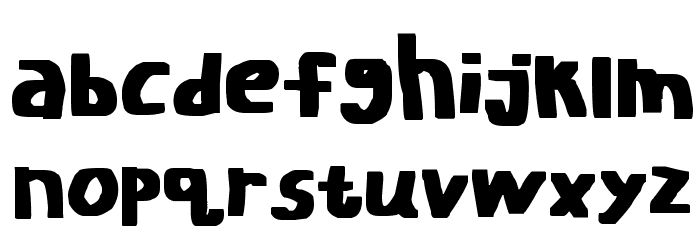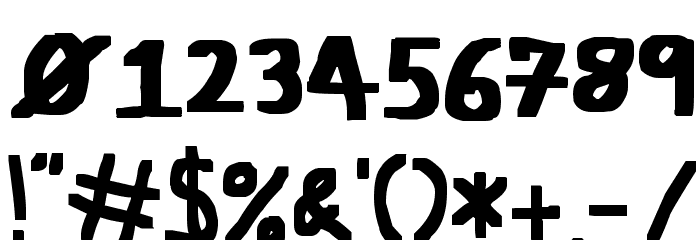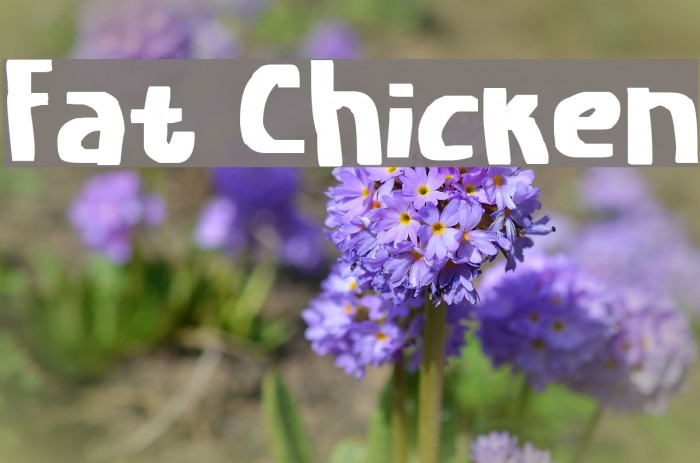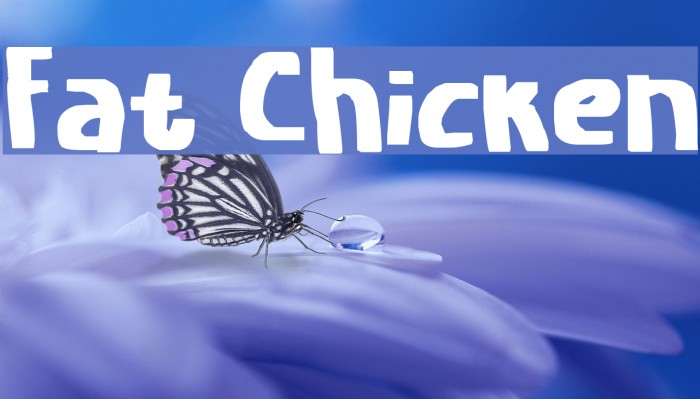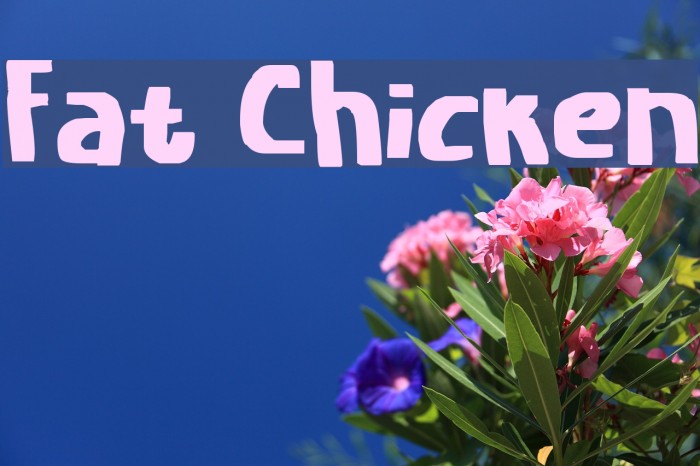
Fat Chicken Font
This playful and bold font features a hand-drawn aesthetic with thick, uneven strokes that give it a lively and informal appearance. The characters are slightly irregular, adding to its whimsical charm. The uppercase and lowercase letters maintain a consistent style, with rounded edges and a slightly condensed form. Numbers and special characters follow the same playful design, making them easily recognizable and cohesive with the overall look. This font exudes a sense of fun and creativity, perfect for projects that aim to capture attention and convey a lighthearted message.
- Font: Fat Chicken
- Proposed Projects: Ideal for children's books, playful branding, party invitations, and creative posters.